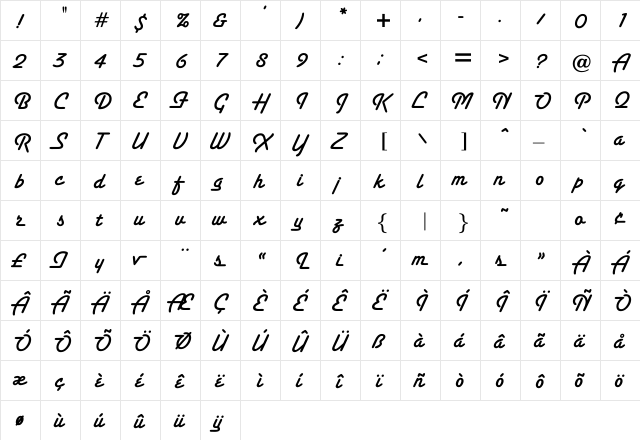
Sanctus Regular
Design Context for Sanctus Typeface
Sanctus is a composed and adaptable typeface that performs quietly and consistently across a wide range of design contexts.